Learn how to match icons with typefaces for a consistent visual language
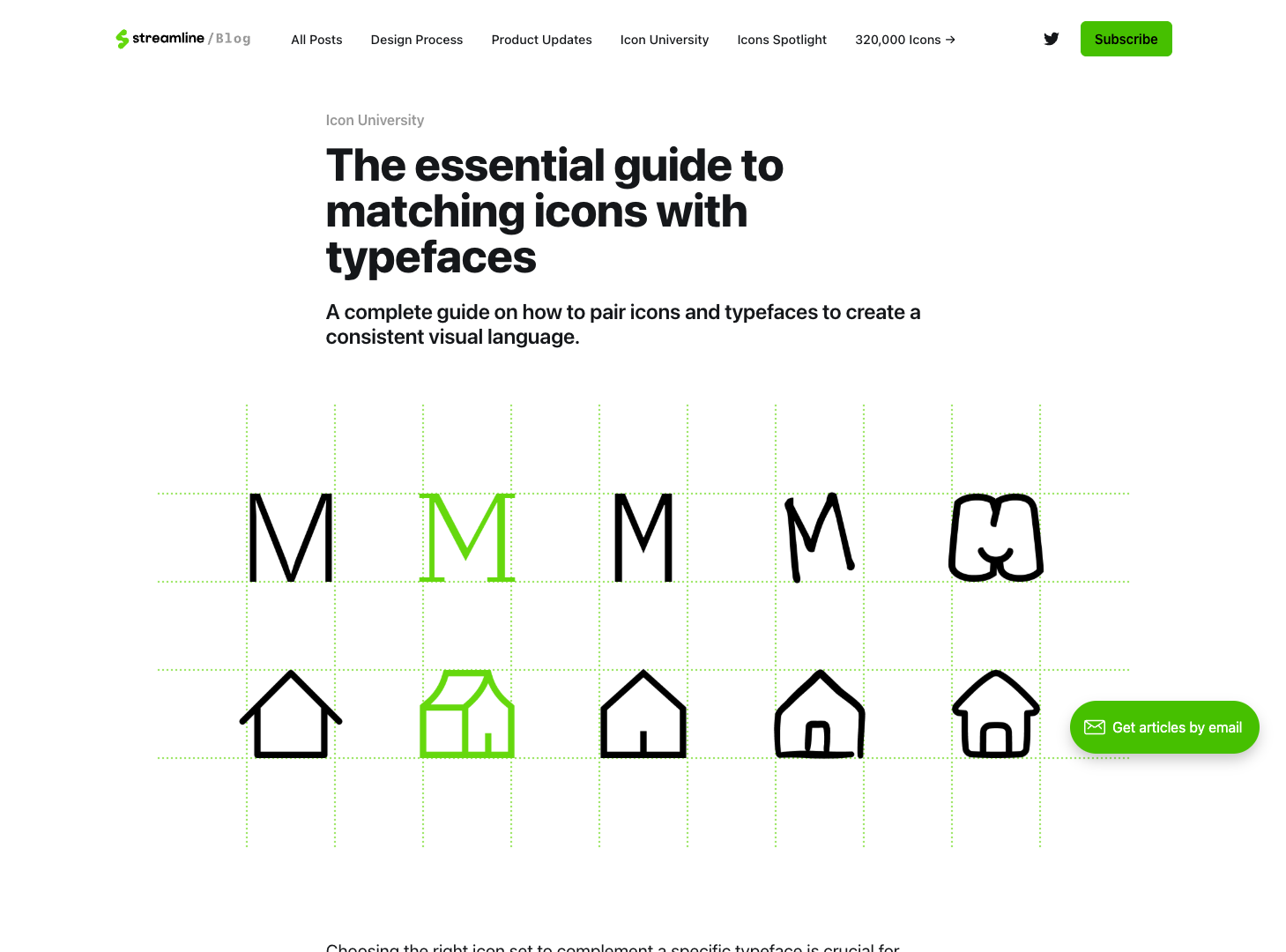
A comprehensive article that walks designers through the process of pairing icons with typefaces. It covers early considerations, style matching for sans‑serif, serif, monospaced, script, and display fonts, and provides specific icon set recommendations for each classification. The guide includes practical examples, showcases real‑world usage, and offers tips for creating custom icon sets from typefaces, helping designers achieve visual harmony across branding, UI, and marketing materials.